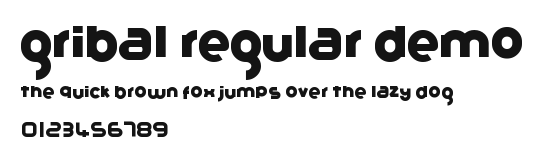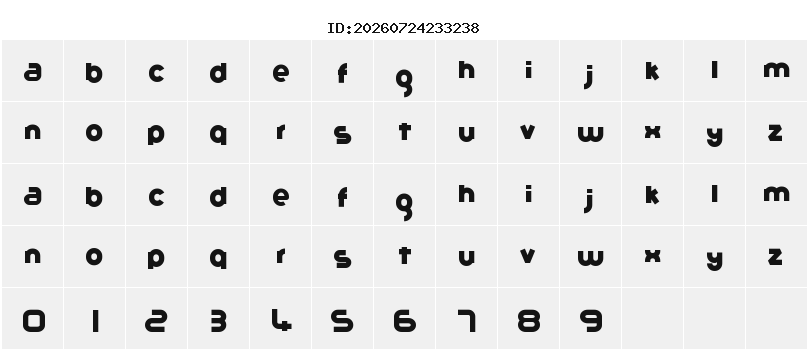
Gribal Regular Demo Preview
• Font Name: Gribal Regular Demo
• Full Font Name: Gribal Regular Demo
About Gribal Regular Demo.otf
Gribal Regular Demo.otf is a modern, elegant sans-serif font designed for ultimate readability and visual harmony. Perfect for branding, headlines, web design, and print materials.